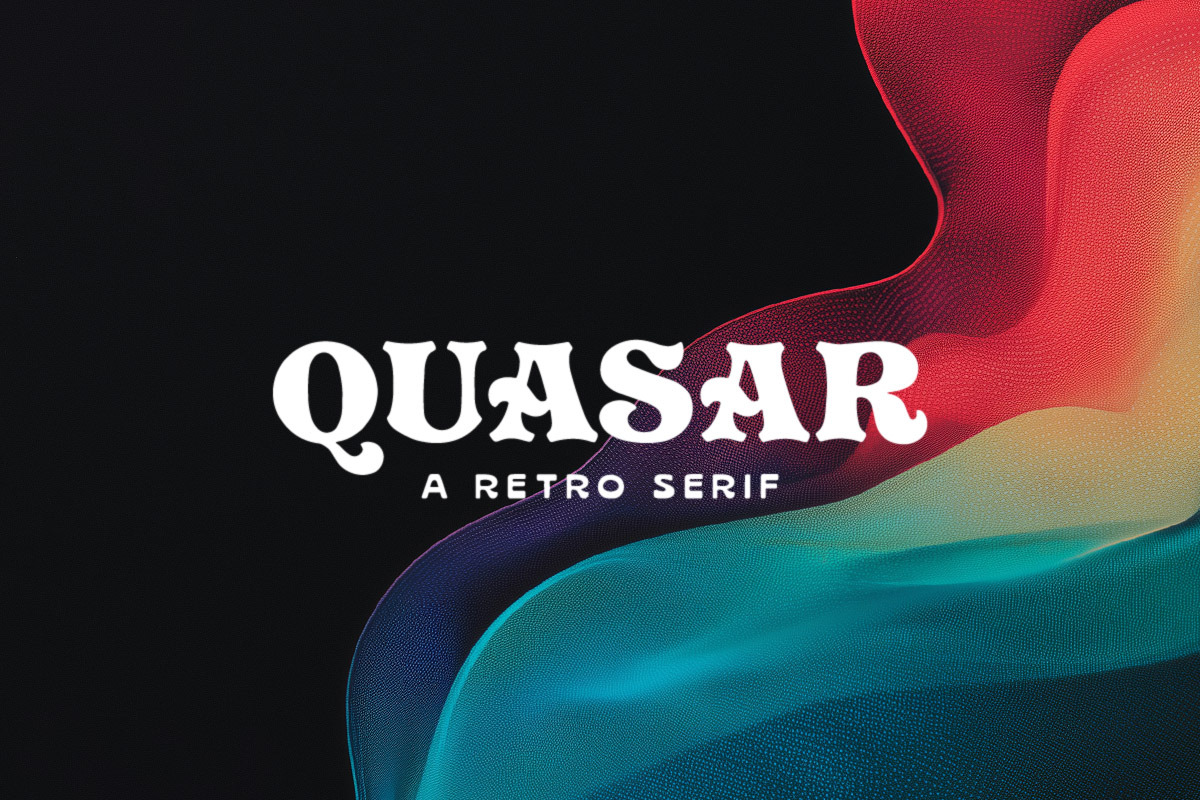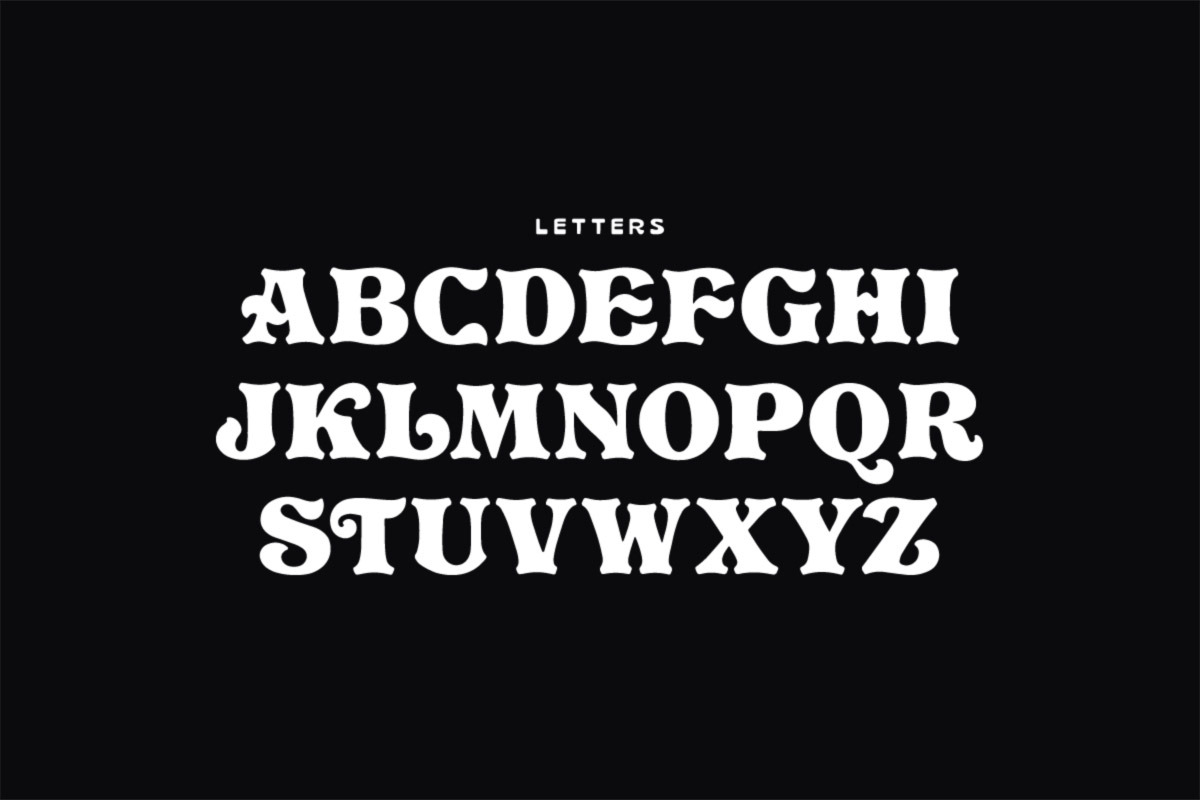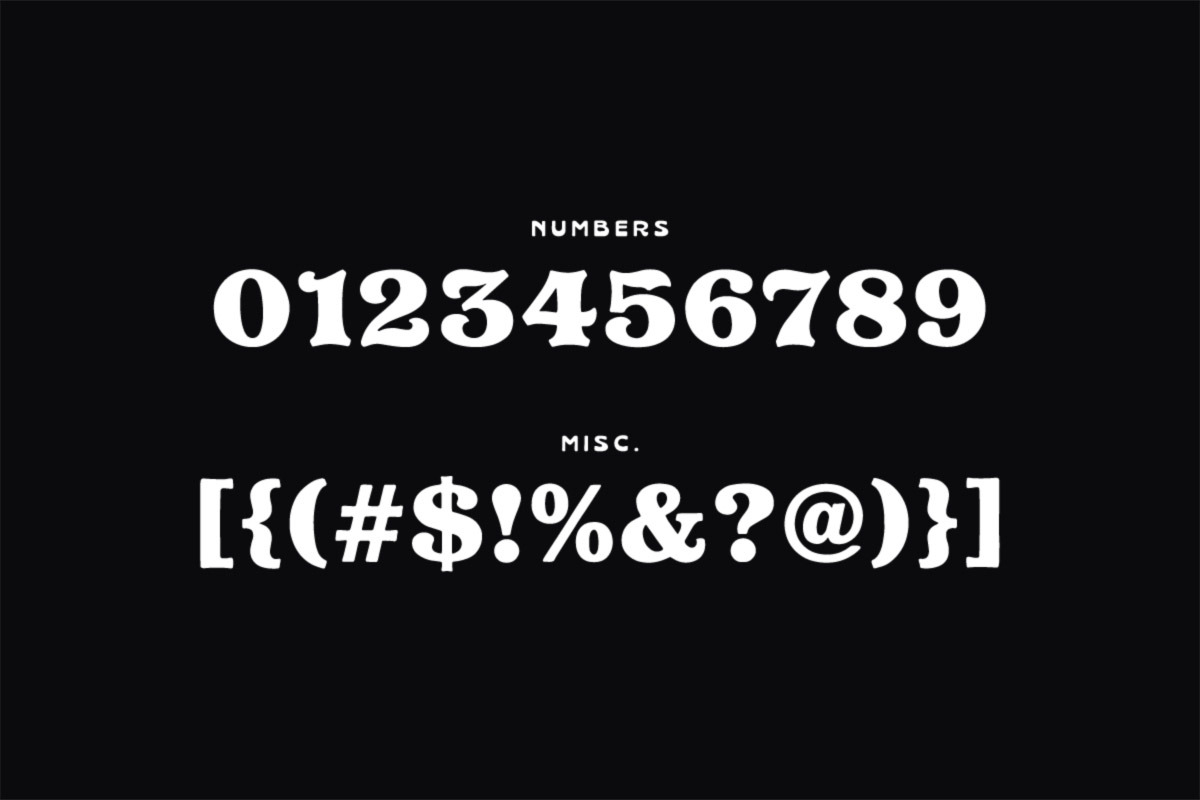
Quasar Typeface
QUASAR is a bold retro serif display font with smooth curves and a playful vintage attitude. Inspired by 70s groove typography, it’s perfect for logos, posters, packaging, album covers, editorial headlines, and nostalgic branding that needs a funky, timeless punch.